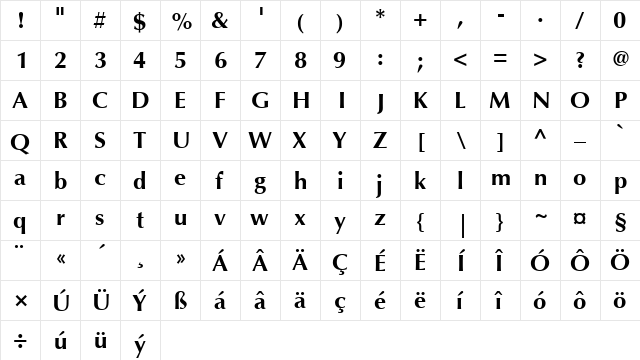
Optima LH Bold
Design Context for Optima LH Typeface
Optima LH takes a measured approach to typography — its balanced proportions and neutral character make it a reliable workhorse for both digital and print work. The heavy weight commands attention and anchors typographic hierarchies.